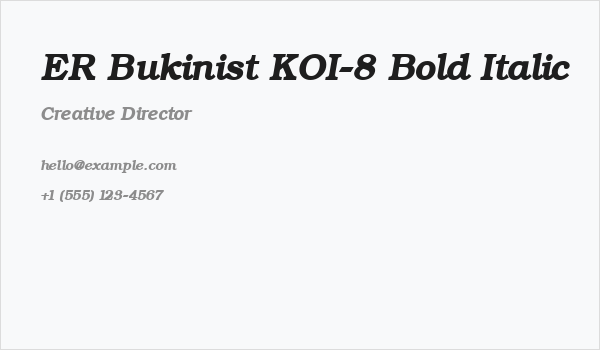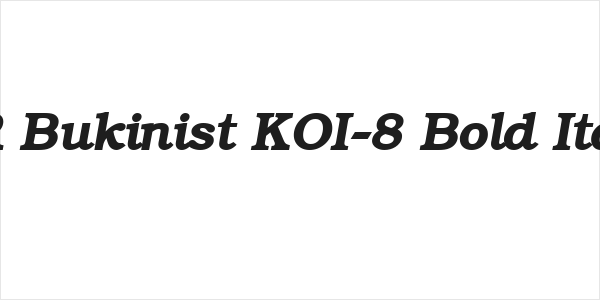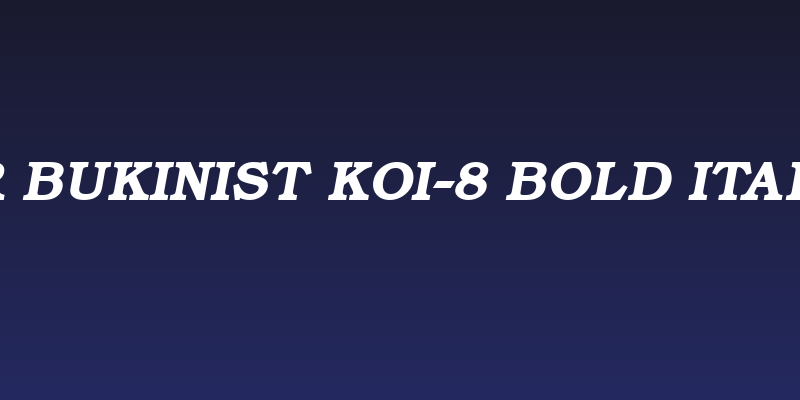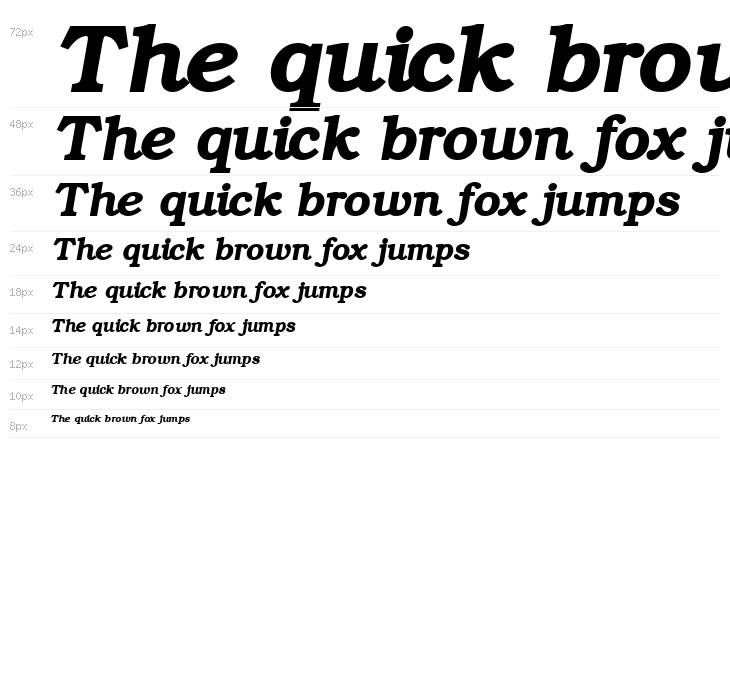
ER Bukinist KOI-8 Bold Italic Font
ER Bukinist KOI-8 Bold Italic Description
This font features a bold and italicized style, characterized by its strong, confident strokes and a slight slant that adds a dynamic feel. The uppercase letters are robust and commanding, while the lowercase letters maintain a consistent flow with rounded edges. Numbers are equally bold, ensuring readability and impact. Special characters are designed with the same boldness, making them stand out effectively. The overall appearance is both classic and modern, suitable for various design needs.